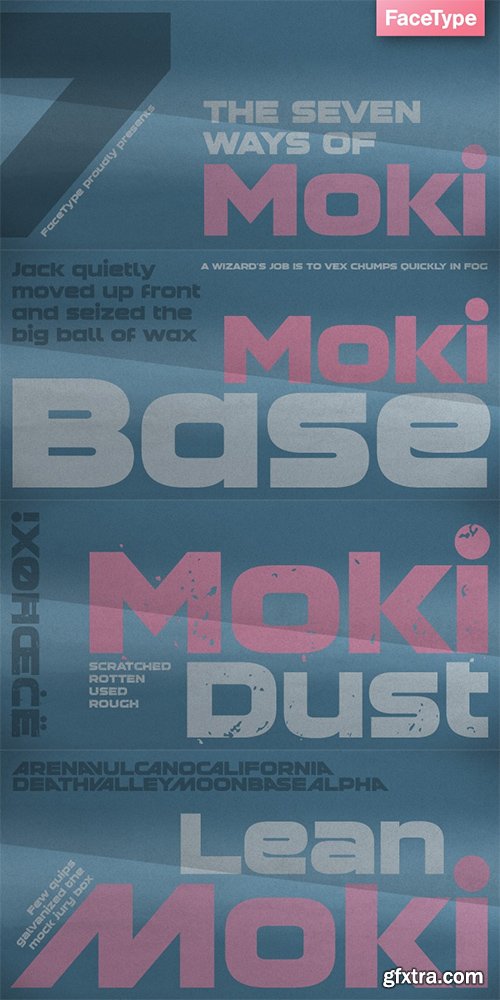
Moki Lean Font
Moki Lean Font - Moki lean, designed by marcus. Font moki lean regular belongs to the categories bold, decorative, fancy, initial, logo, sans serif,. Moki sans serif font is modern and futuristic sans display font with multiple styles. Web display | stencil. Web download and install the moki lean font for photoshop, macos, windows, web in all formats (moki lean woff2, moki.